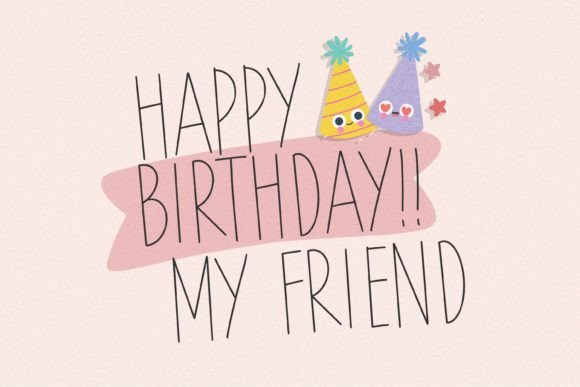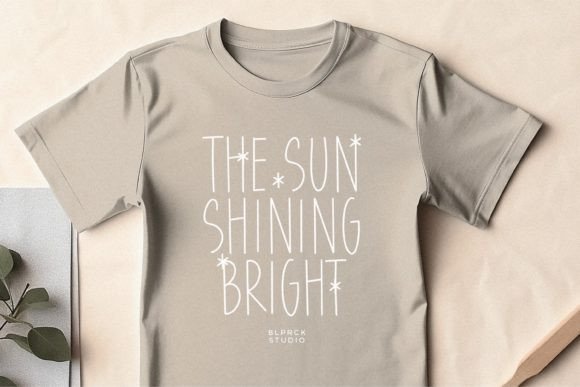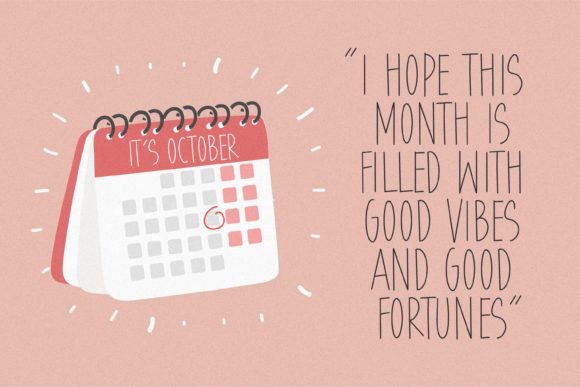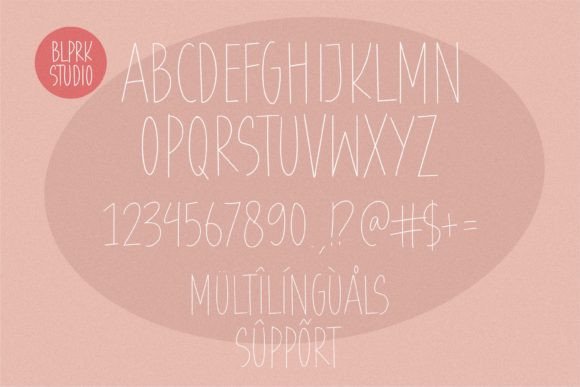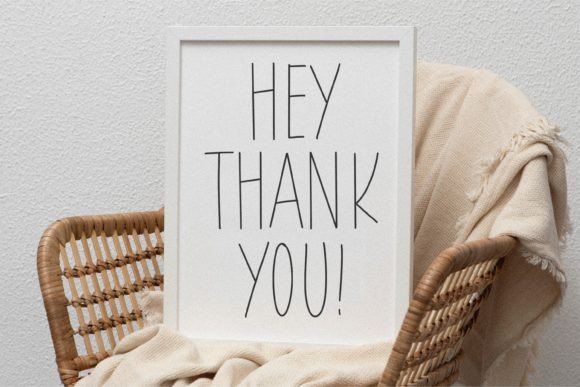
Introduction to Lonesome Town Font Font
Fonts play a crucial role in design, and the Lonesome Town Font font is a typeface that brings both character and versatility to any project. Whether you’re working on a branding project, a website, or a print design, the Lonesome Town Font font offers a unique style that can elevate your work.
| 📌 Font Name | Lonesome Town Font |
| 👤 Author | Balpirick |
Lonesome Town is a Condensed Handwritten Font.
This font is very suitable for writing quotes and notes Apart from that, it can be used for logos, book covers, magazines, t-shirts, and others.
Key Features of Lonesome Town Font Font
Why Choose Lonesome Town Font Font?
The Lonesome Town Font font is more than just a typeface – it’s a design tool that helps you communicate your message with style and clarity. Its unique character set and versatile design make it suitable for a wide range of applications, from elegant invitations to bold headlines.
With its carefully crafted letterforms and balanced proportions, the Lonesome Town Font font ensures readability and visual appeal across all mediums.
What makes Lonesome Town Font font special?
The Lonesome Town Font font stands out with its unique design, exceptional readability, and versatility across various design applications.